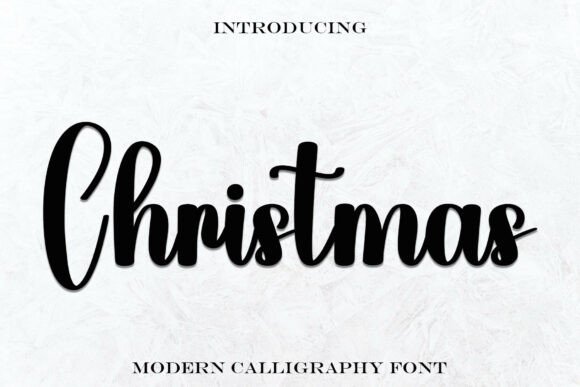
Introducing Christmas Font: The Sweet and Cursive Handwritten Font for Your Holiday Designs
Are you looking for a font that captures the essence of the holiday season? Do you want to add a touch of elegance and whimsy to your designs? Look no further than Christmas Font, a sweet and cursive handwritten font that’s perfect for a variety of design projects. In this article, we’ll explore the features and benefits of Christmas Font, and show you how to make the most of this beautiful font in your holiday designs.
What is Christmas Font?
Christmas Font is a gentle, cursive handwritten font that’s designed to bring a touch of joy and romance to your designs. With its flowing lines and delicate curves, this font is perfect for creating beautiful and elegant designs that will capture the spirit of the holiday season. Whether you’re designing a logo, a greeting card, or a marketing promotion, Christmas Font is the perfect choice.
Features of Christmas Font
So, what makes Christmas Font so special? Here are just a few of its key features:
- Sweet and Cursive: Christmas Font has a sweet and cursive style that’s perfect for creating elegant and whimsical designs.
- Handwritten: This font has a handmade feel that’s perfect for adding a personal touch to your designs.
- Versatile: Christmas Font can be used for a wide range of design projects, from branding and logos to wedding designs and greeting cards.
- Elegant and Casual: This font strikes the perfect balance between elegance and casualness, making it perfect for designs that need to be both sophisticated and approachable.
Use Cases for Christmas Font
So, what can you use Christmas Font for? The possibilities are endless! Here are a few ideas to get you started:
- Branding and Logos: Use Christmas Font to create a beautiful and elegant logo that captures the spirit of your brand.
- Wedding Designs: This font is perfect for wedding invitations, wedding cards, and other wedding-related designs.
- Greeting Cards: Use Christmas Font to create beautiful and heartfelt greeting cards for the holiday season.
- Fashion and Lookbooks: This font is perfect for fashion designers and stylists who want to add a touch of elegance to their lookbooks and marketing materials.
- Marketing Promotions: Use Christmas Font to create eye-catching marketing promotions that capture the spirit of the holiday season.
Tips for Using Christmas Font
Here are a few tips for getting the most out of Christmas Font:
- Use it with a simple background: Christmas Font looks best with a simple background that allows the font to take center stage.
- Experiment with colors: This font looks great in a variety of colors, so don’t be afraid to experiment and find the perfect color scheme for your design.
- Use it sparingly: While Christmas Font is beautiful, it can be overwhelming if used too much. Use it sparingly to create a beautiful and elegant design.